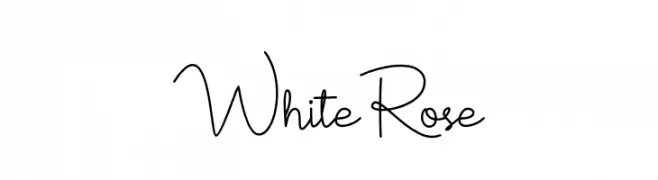
A bold, industrial font with a mechanical and futuristic design.
A whimsical, handwritten font with elegant, flowing cursive letters.
A playful, hand-drawn font with irregular, whimsical letterforms.
A playful, bold, and hand-drawn style font with irregular strokes.
A bold, cursive font with elegant, flowing lines and a sophisticated style.
A bold, decorative font with geometric elements and high contrast.
A bold, high-contrast font with dramatic serifs and artistic curves.
A modern, geometric font with a 3D shadow effect and bold, angular characters.
Collage-style ransom note font.
Collage-style, eclectic font with varied letter styles.